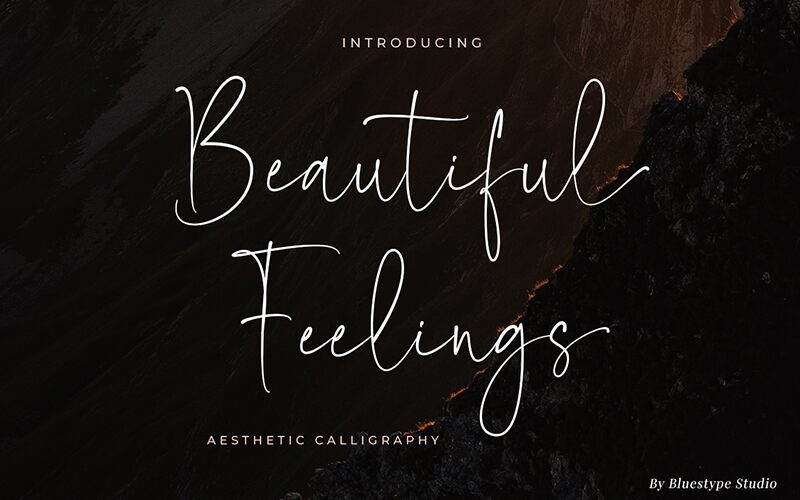
Beautiful Feelings
Beautiful Feelings font by Bluestype Studio is a light, free-form script font with the characteristics of handwritten and signature styles. Its romantic appeal stems from its graceful flow, delicate shapes, and elegant appearance that make it look charming to the eye. It reserves space for a decent dose of expressiveness in any project with its gentle feel and strokes.
Free for use, Beautiful Feelings is many designer's go-to choice whenever they need a romantic font. Enjoy decorating wedding invitations, greeting cards, wish cards with it or using it on package design projects. The options are limitless in poster design projects as well as branding/corporate identity design (especially logos).